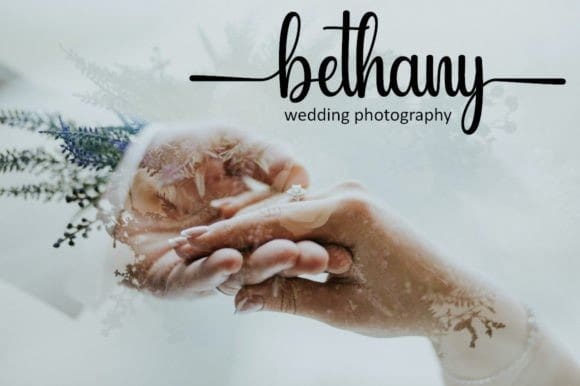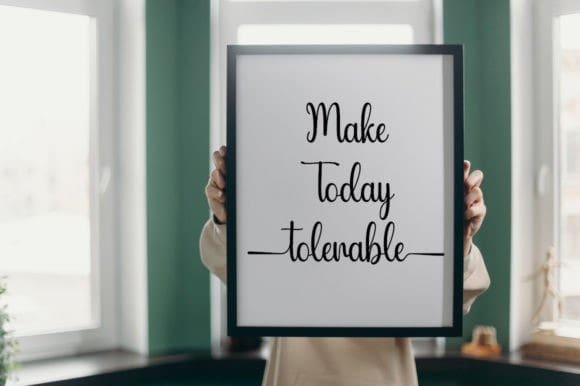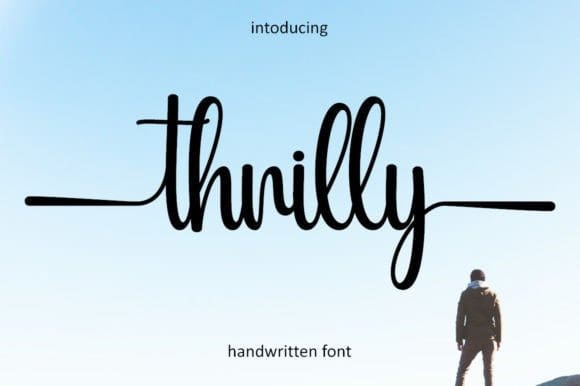
Thrilly Script Font
Thrilly Script Font is a stylish handwritten font with a contemporary atmosphere and impeccable form, inspired by timeless classic calligraphy. Balanced and varied, this font was designed to enhance the beauty of your projects. This font is PUA encoded, so you can easily access all the glyphs and swashes!